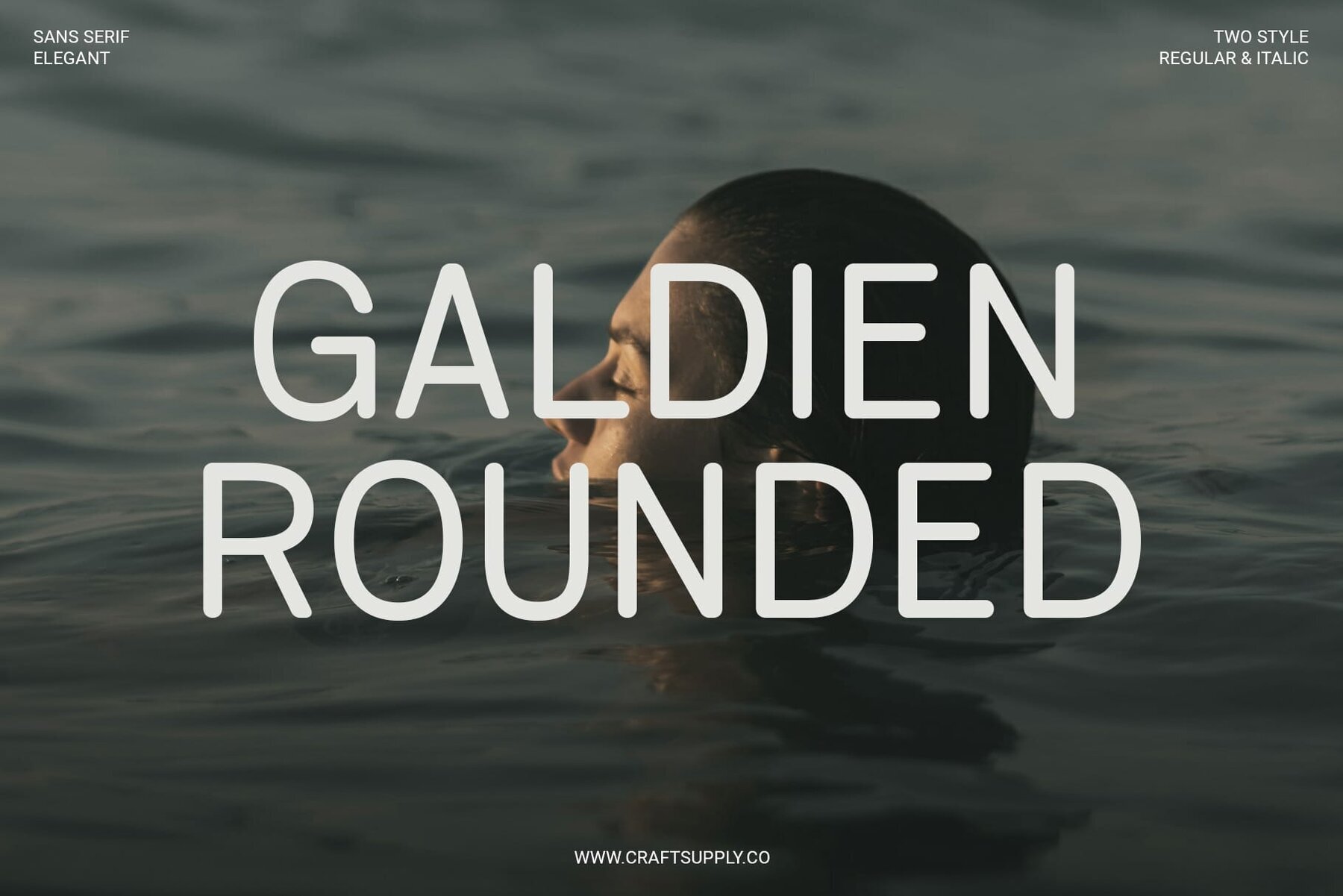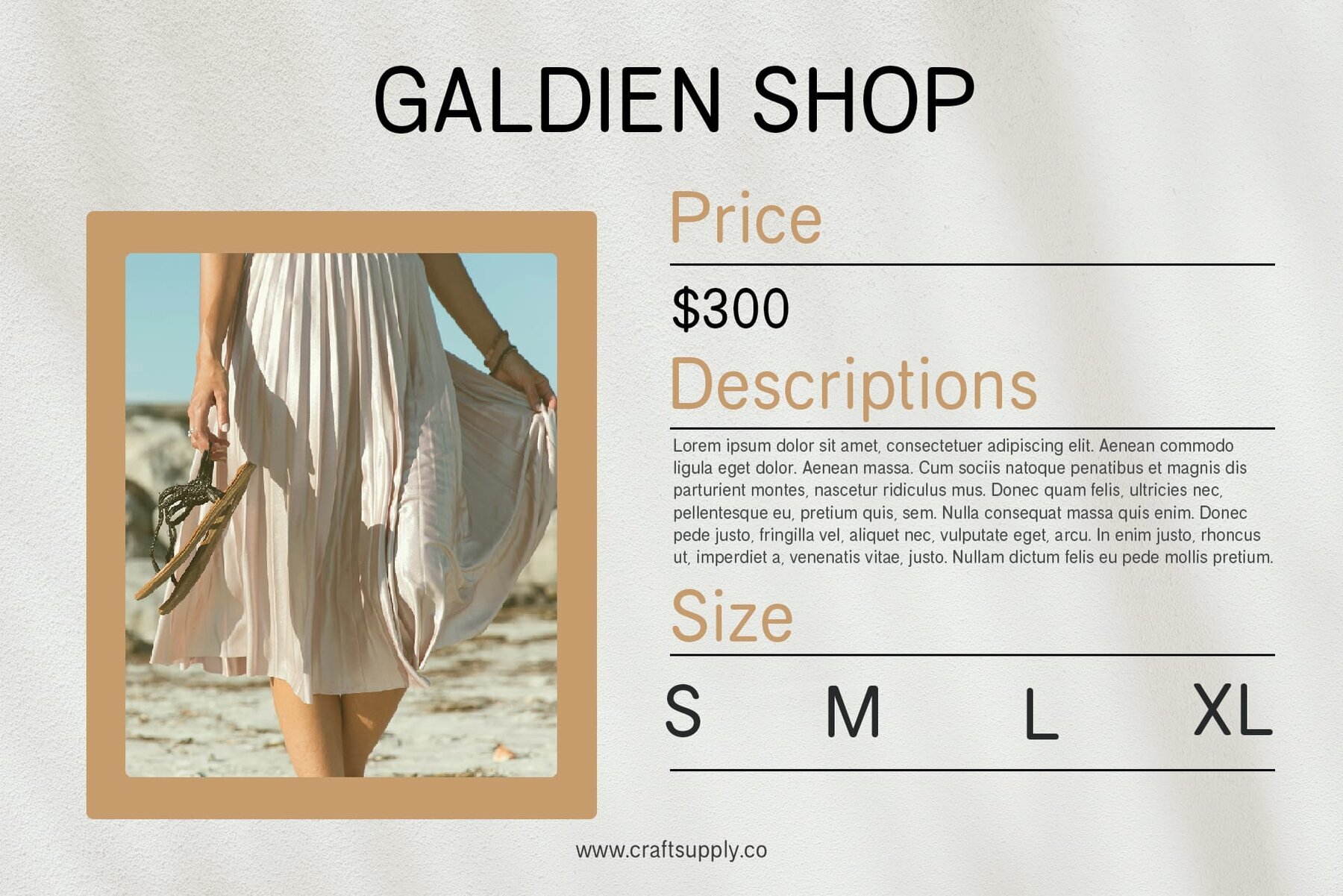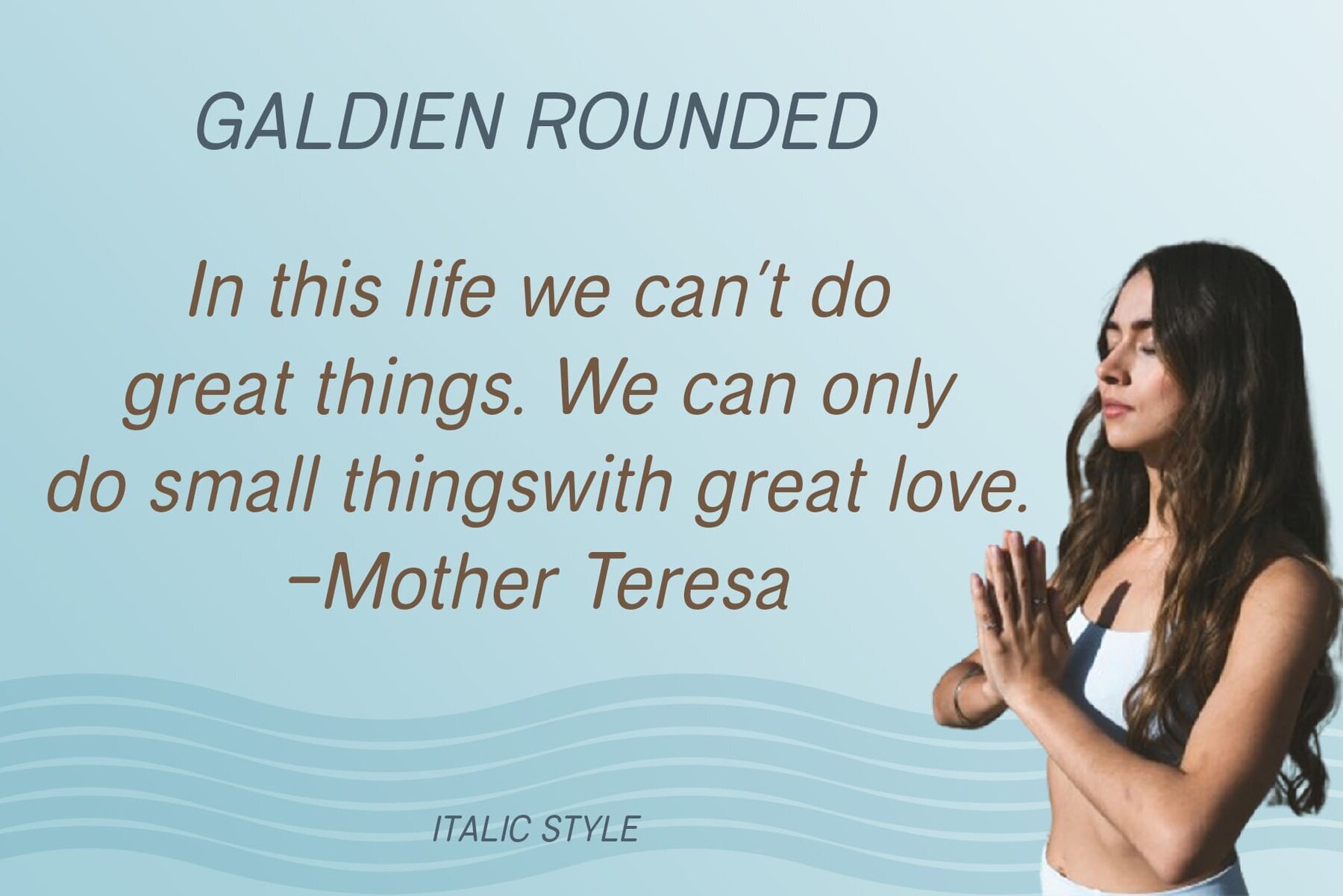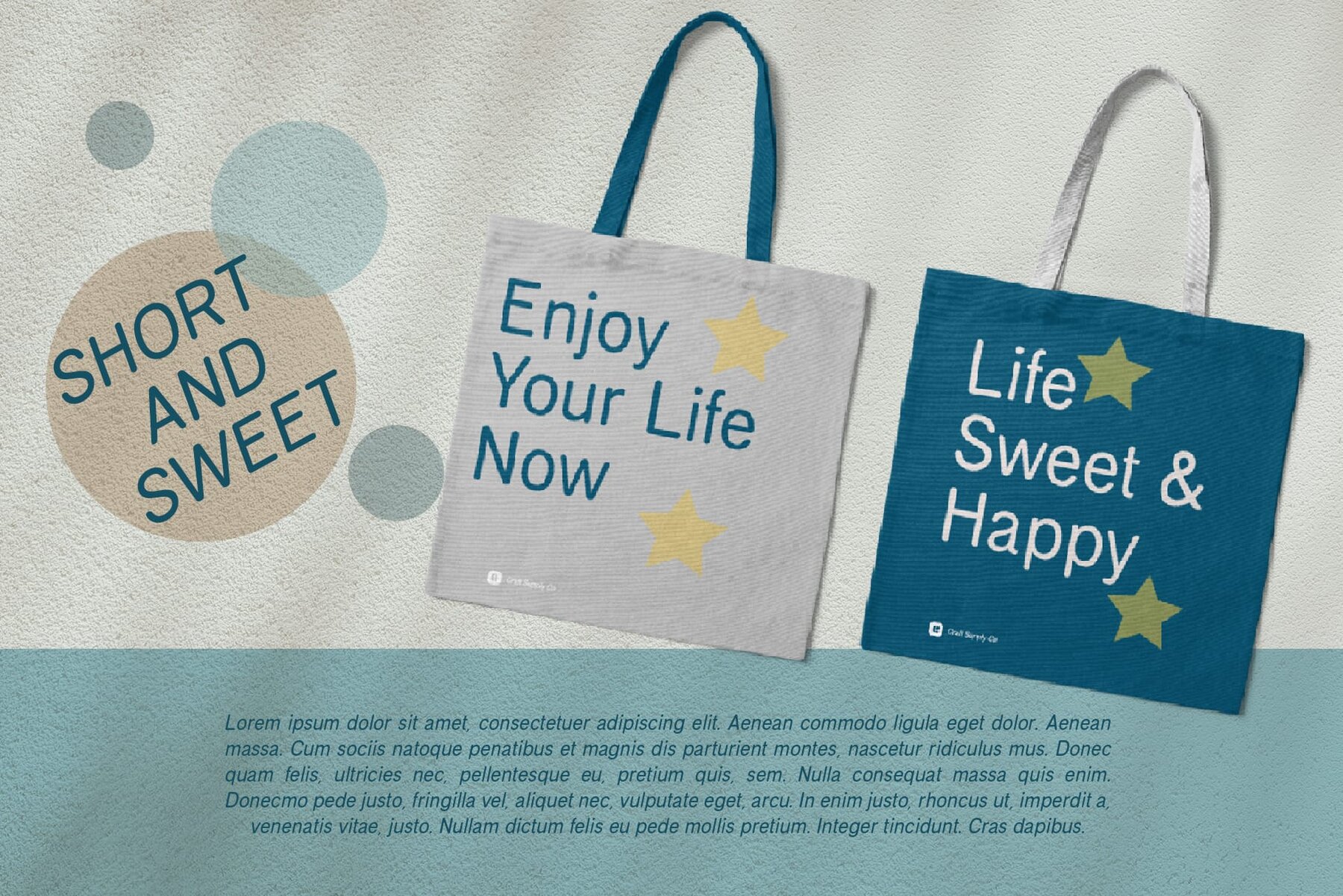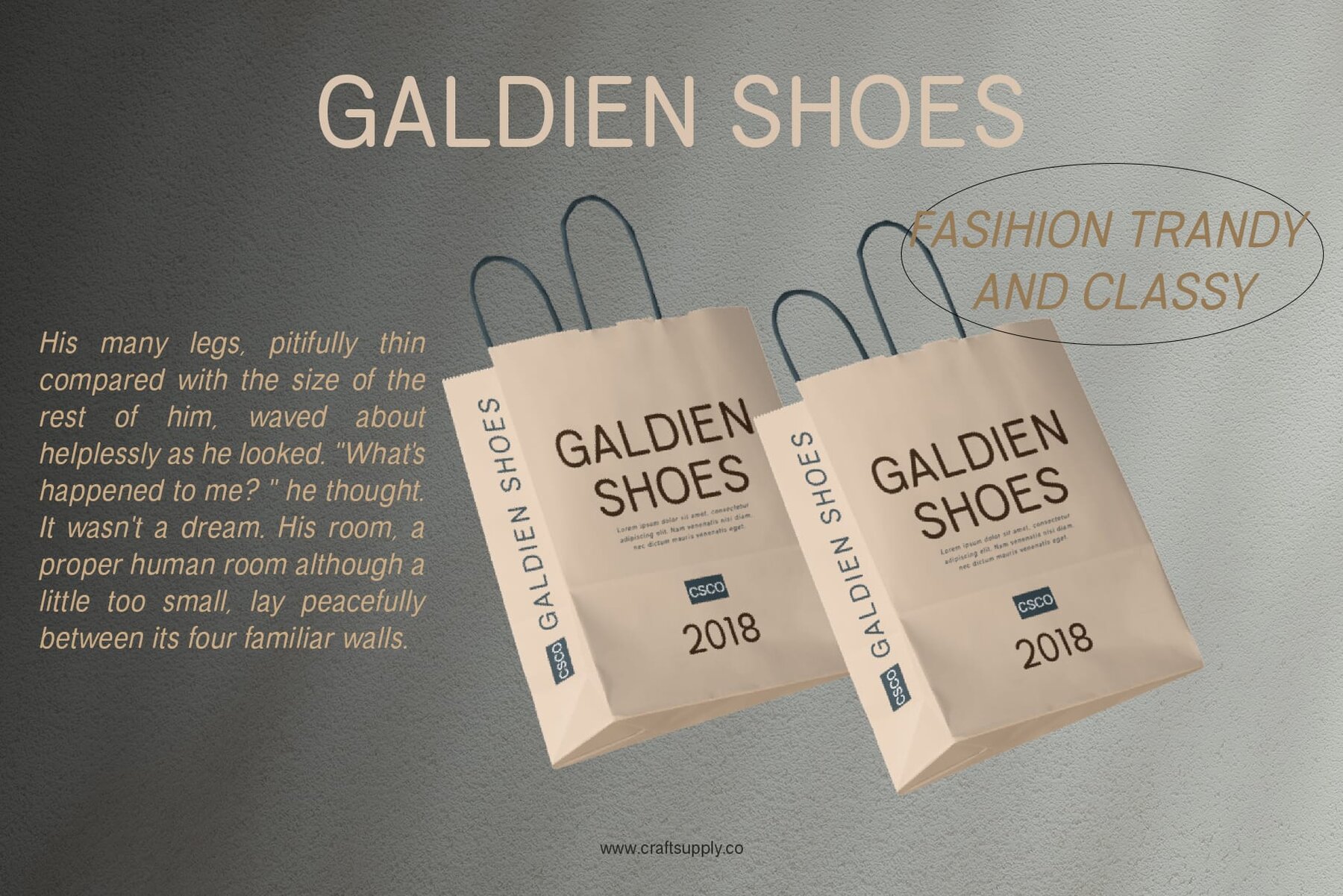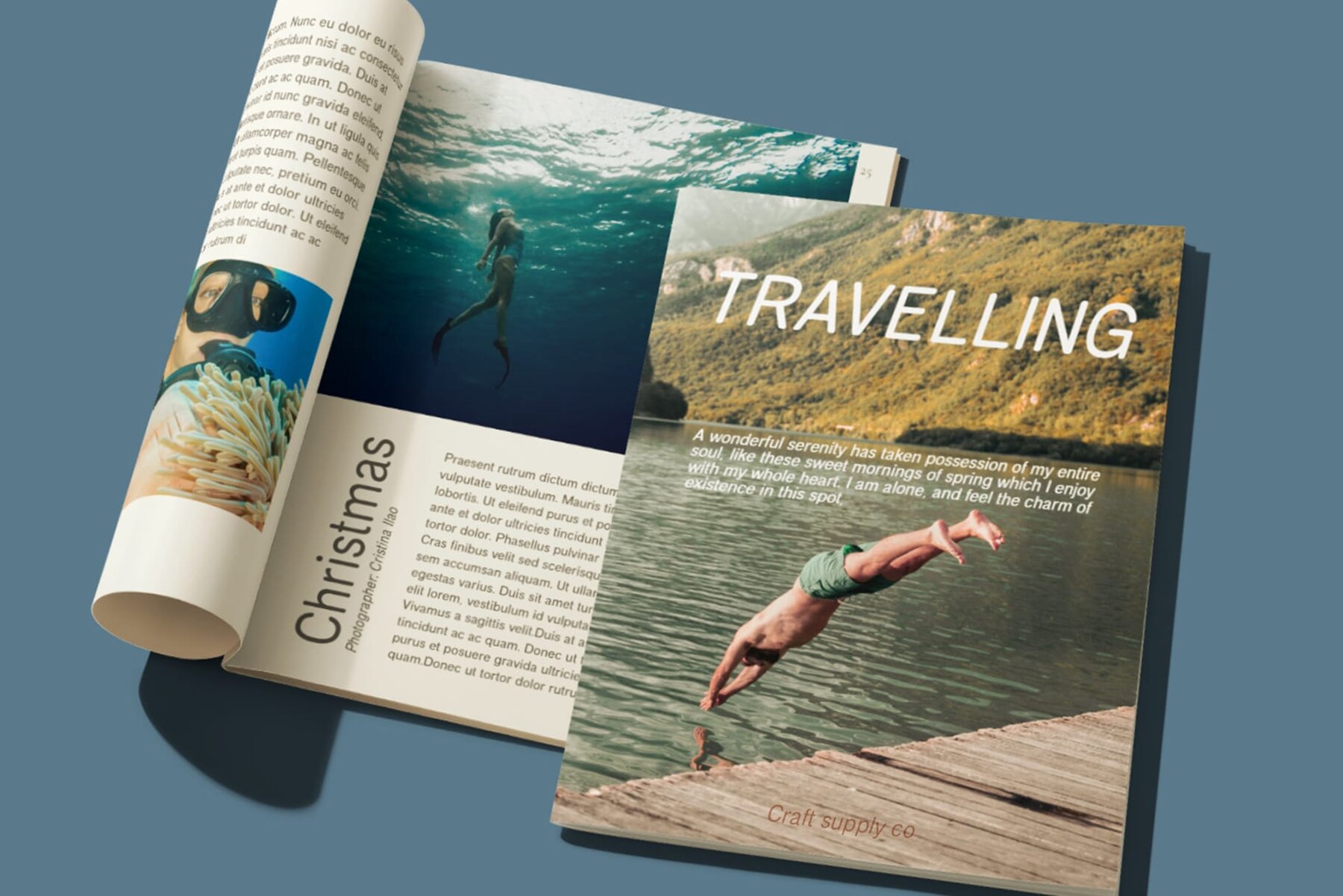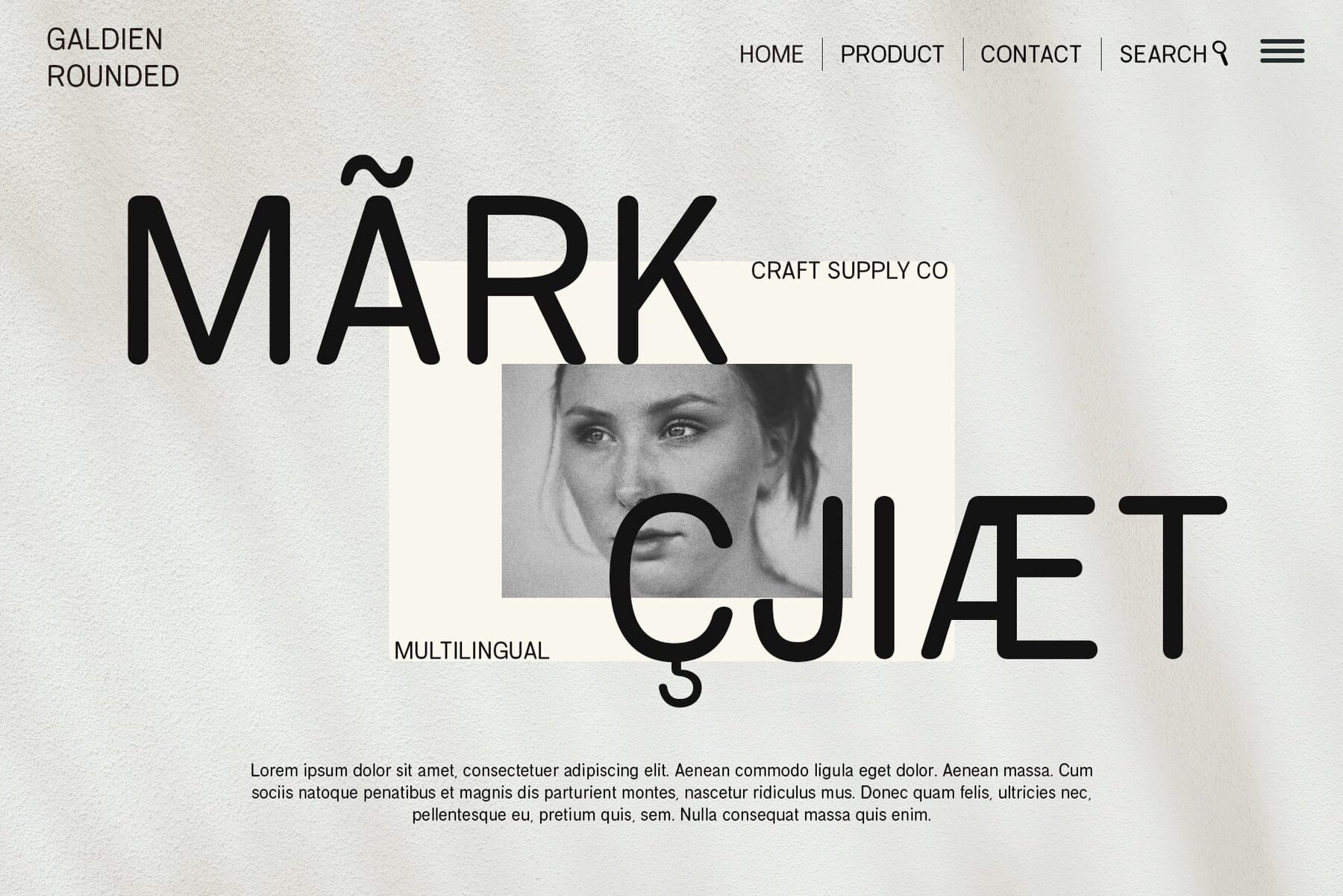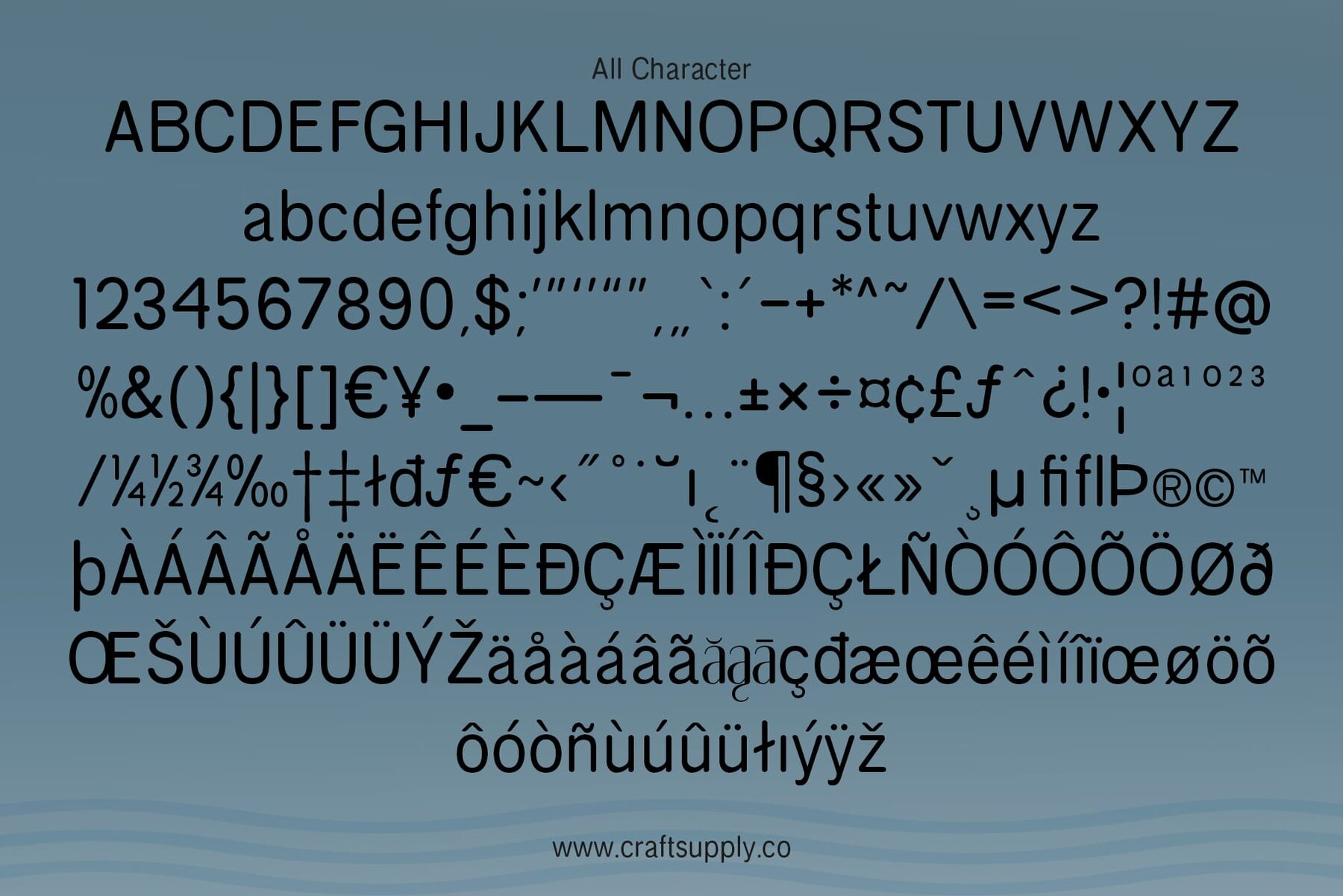
Galdien Rounded Font
Galdien Rounded: Corporate Sophistication with Rounded Touch Low Contrast Sans Serif Neat and Tidy Appearance Rounded Stem Ends Perfect for Corporate Branding The Epitome of Corporate Elegance What you get : Features : You can use this typeface without needing any specialized software.
Galdien Rounded features a low-contrast sans serif design that exudes professionalism and clarity. Its clean lines and uniform stroke widths create a sense of order and neatness.
The font boasts a tidy appearance, making it ideal for corporate settings where clarity and professionalism are paramount. Its precise letterforms ensure readability and consistency across various applications.
With rounded stem ends, This font adds a touch of softness and approachability to its otherwise structured design. This subtle feature enhances legibility and contributes to its modern aesthetic.
This font is perfectly suited for corporate branding projects, including logos, websites, and marketing materials. Its balanced proportions and rounded details convey reliability and trustworthiness, essential qualities for corporate identity.
This font offers a perfect blend of professionalism and approachability, making it an excellent choice for corporate branding and communication. With its low-contrast sans serif design and rounded stem ends, it conveys sophistication and reliability, ensuring that your corporate identity makes a lasting impression.